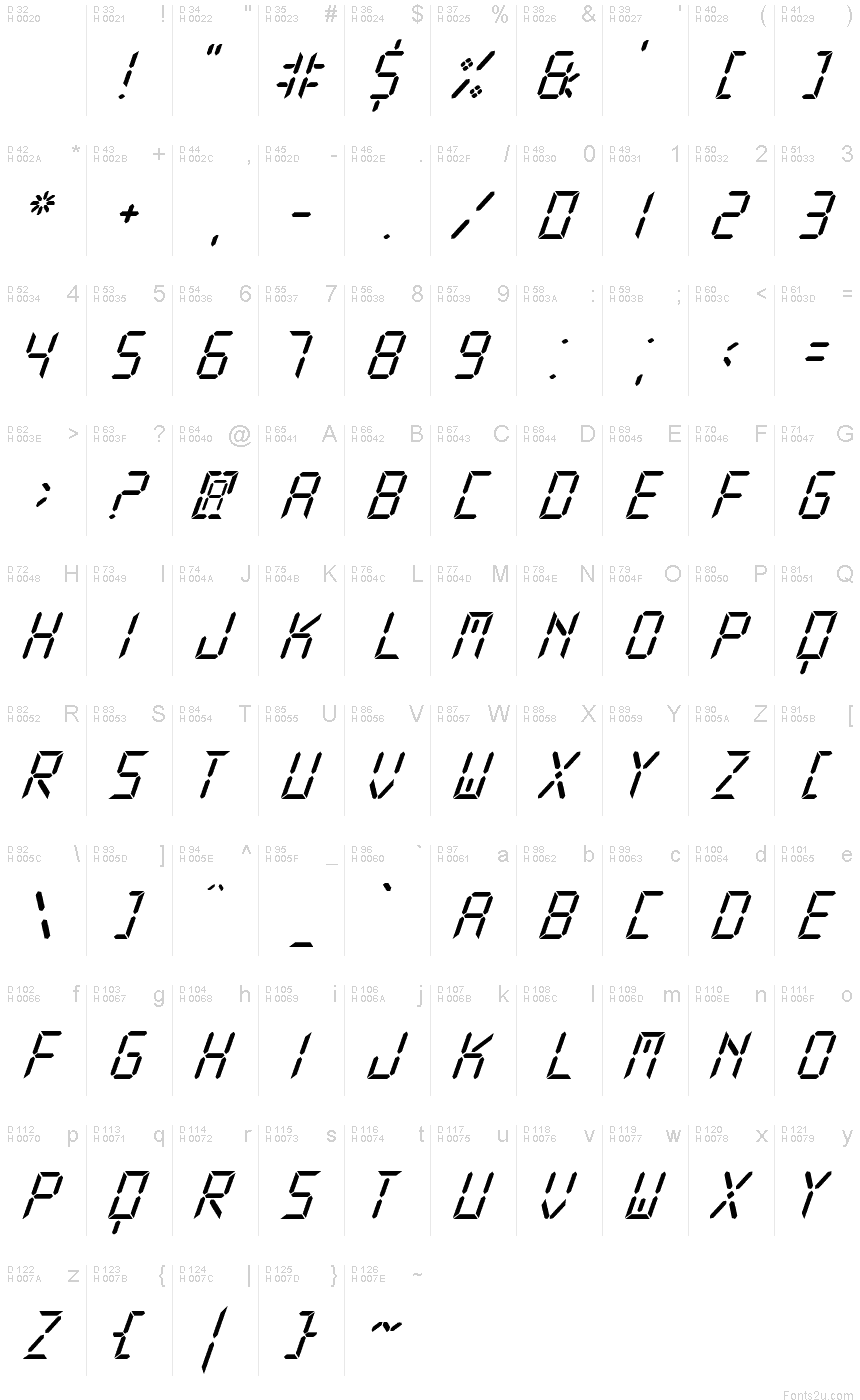
New X Digital TFB Italic is a free digital display font with a pronounced forward lean and the clipped, separated strokes of electronic readouts. Its tall, narrow letters alternate open gaps with broad horizontal bars, producing a sparse mechanical silhouette that feels sharper and less uniform than a standard calculator face.
Technology is the clearest subject for this lettering, especially in game interfaces, electronic music graphics, science-fiction posters, and gadget packaging, where the broken strokes can echo screens, circuitry, or status indicators. It speaks most directly to retro-tech and arcade-minded audiences.